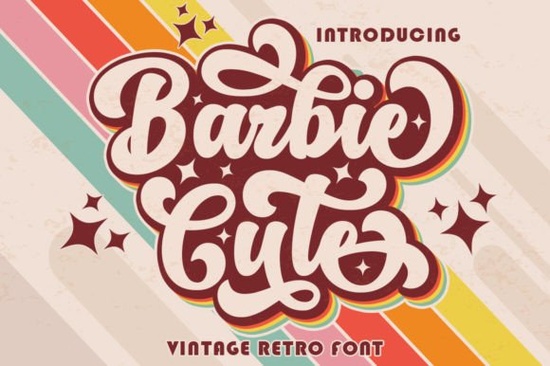
If you're working on a design that calls for playful nostalgia with a polished finish, the Barbie Cute Font might be exactly what you need. This script-style typeface blends retro charm with clean, modern lines making it ideal for everything from vintage-inspired apparel to boutique packaging and custom signage. Whether you’re a print-on-demand seller crafting themed merchandise or a small business owner designing your brand identity, this font adds personality without overwhelming your layout.
What sets Barbie Cute apart is its attention to detail. Each letter includes subtle swashes and flourishes that feel handcrafted, yet the overall structure remains legible and versatile. Thanks to PUA (Private Use Area) encoding, all those decorative alternates and ligatures are easy to access in most design software no hunting through glyph panels required.
What kinds of projects work best with Barbie Cute?
This font shines when used in contexts that benefit from warmth, whimsy, and a touch of yesteryear flair. Think:
- Apparel designs – especially for kids’ tees, birthday party shirts, or retro-themed collections
- Branding elements – logos, labels, or social media graphics for bakeries, boutiques, or handmade goods
- Printed stationery – invitations, greeting cards, or gift tags with a nostalgic vibe
- Packaging – for cosmetics, candies, or artisanal products where charm matters as much as clarity
Because it’s a script font with soft curves and open spacing, it pairs well with clean sans-serifs or minimalist display fonts. If you’re looking for complementary options, consider exploring other Creative Fabrica script fonts like Rainbow Font for something more bubbly, or Thunder Heat Duo if you want bold contrast with a matching sans-serif companion.
How does it compare to other script fonts?
Not all script fonts strike the right balance between personality and practicality. Some lean too ornate for everyday use; others feel generic. Barbie Cute lands in a sweet spot it’s distinctive but not distracting. Unlike overly dramatic wedding scripts (like those in the Christmas Wedding Font collection), it keeps its energy light and friendly rather than formal.
It also avoids the rugged, hand-lettered aesthetic found in fonts like Country Last Night Duo, which suits rustic or Americana themes. Barbie Cute, by contrast, feels more polished and urban think 1960s diner meets modern lifestyle brand.
Tips for using Barbie Cute effectively
To get the most out of this font, keep these practical pointers in mind:
- Avoid long blocks of text. Like most script fonts, it’s best reserved for headlines, short phrases, or accent words.
- Use generous spacing. Slight letter-spacing (tracking) can enhance readability, especially at smaller sizes.
- Test print legibility. If you’re using it for physical products like mugs or tote bags print a sample first to ensure the fine details hold up.
- Pair thoughtfully. Combine it with a neutral, geometric sans-serif (like Montserrat or Futura) to create visual harmony.
Who should consider this font?
Barbie Cute isn’t just for Barbie-themed projects (though it certainly works beautifully there!). It’s a smart choice for:
- Crafters making custom vinyl decals or embroidery patterns
- Etsy sellers designing printable party kits or digital stickers
- Small brands wanting a memorable, feminine-but-not-frilly identity
- Teachers or event planners creating cheerful classroom decor or birthday materials
Its versatility means you can reuse it across multiple product lines just adjust color, size, or supporting graphics to shift the mood from sweet to sophisticated.